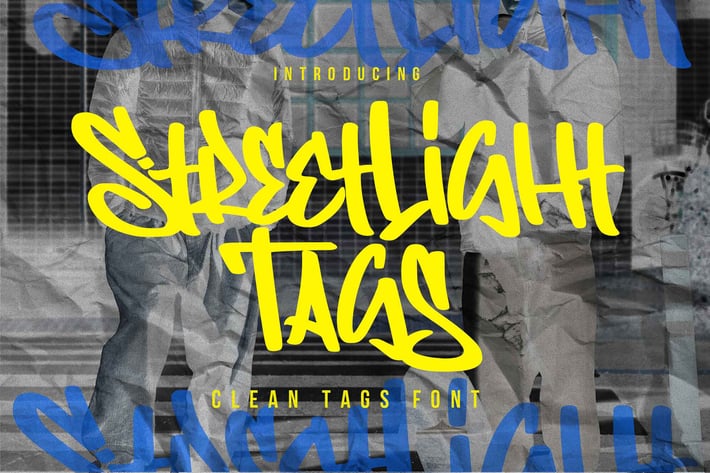
Streetlight Tags - Clean Tags Font
Hello Everyone, introduce our new product Font Streetlight Tags Clean Tags Font.This is a Textured Natural Style and classy style with a tags style.
This font Streetlight Tags is great for your next creative project such as logos, printed quotes, invitations, cards, product packaging, headers, Logotype, Letterhead, Poster, Design this font is great for your creative projects such as watermark on photography, and perfect for logos & branding, invitation,advertisements,product designs, stationery, wedding designs,label ,product packaging, special events or anything that need handwritting taste.
That is has charming, authentic and relaxed characteristic more natural look to your text.